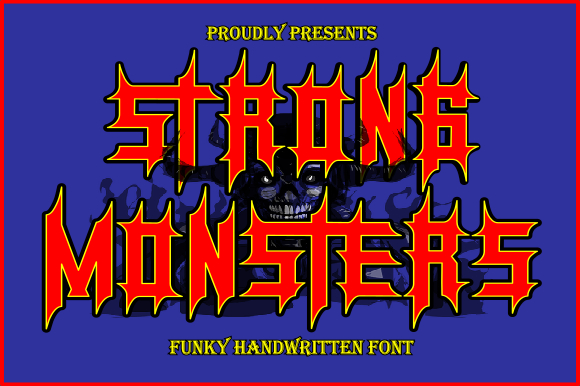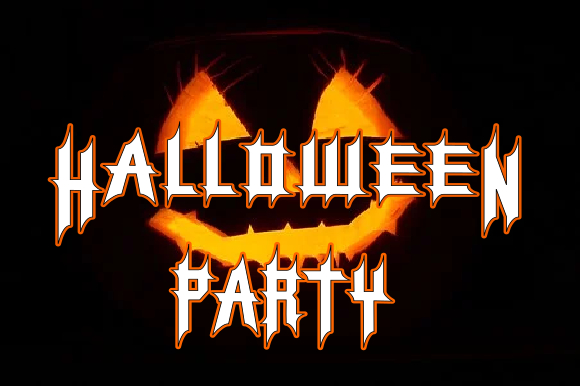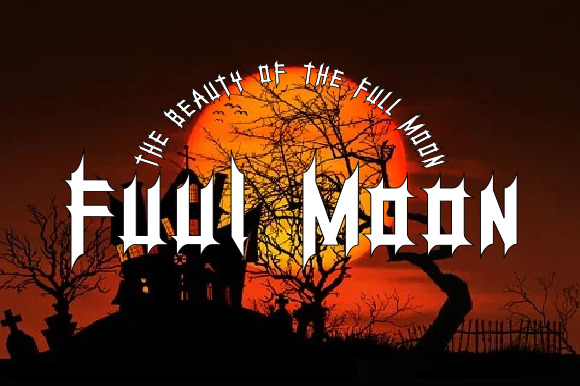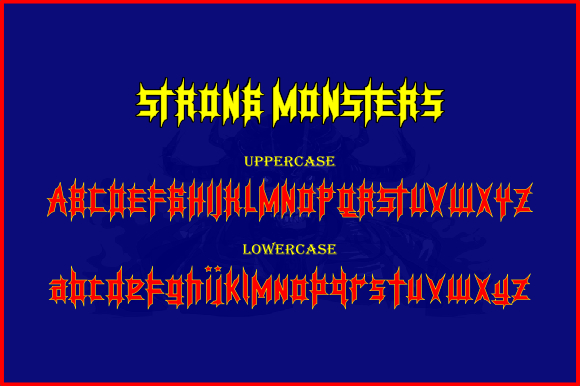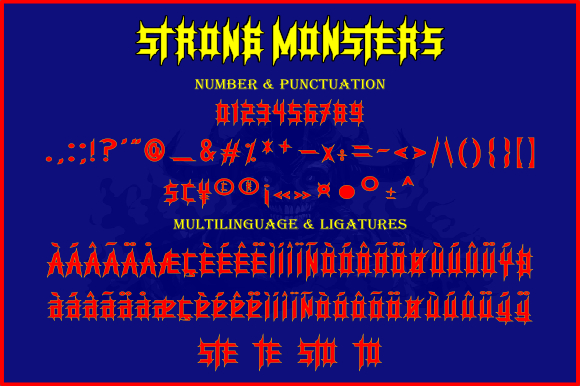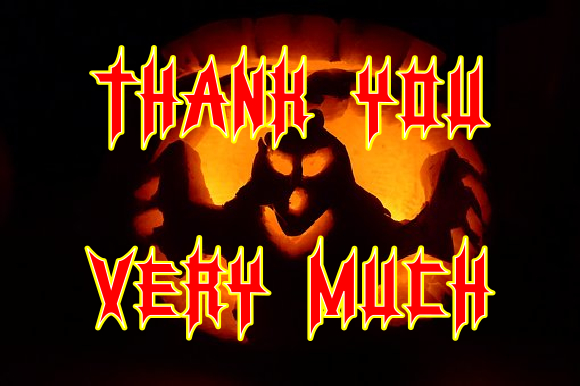
Strong Monsters Font
About Strong Monsters Font
Strong Monsters is a unique and dramatic blackletter font. Add it to your creative ideas and notice how it makes them stand out!